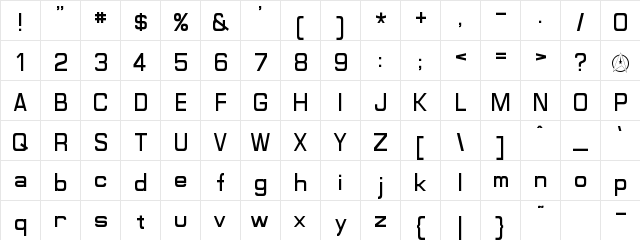
Microgramma Trek Regular
| Designer | Neale Davidson |
Microgramma Trek takes a measured approach to typography — its balanced proportions and neutral character make it a reliable workhorse for both digital and print work.